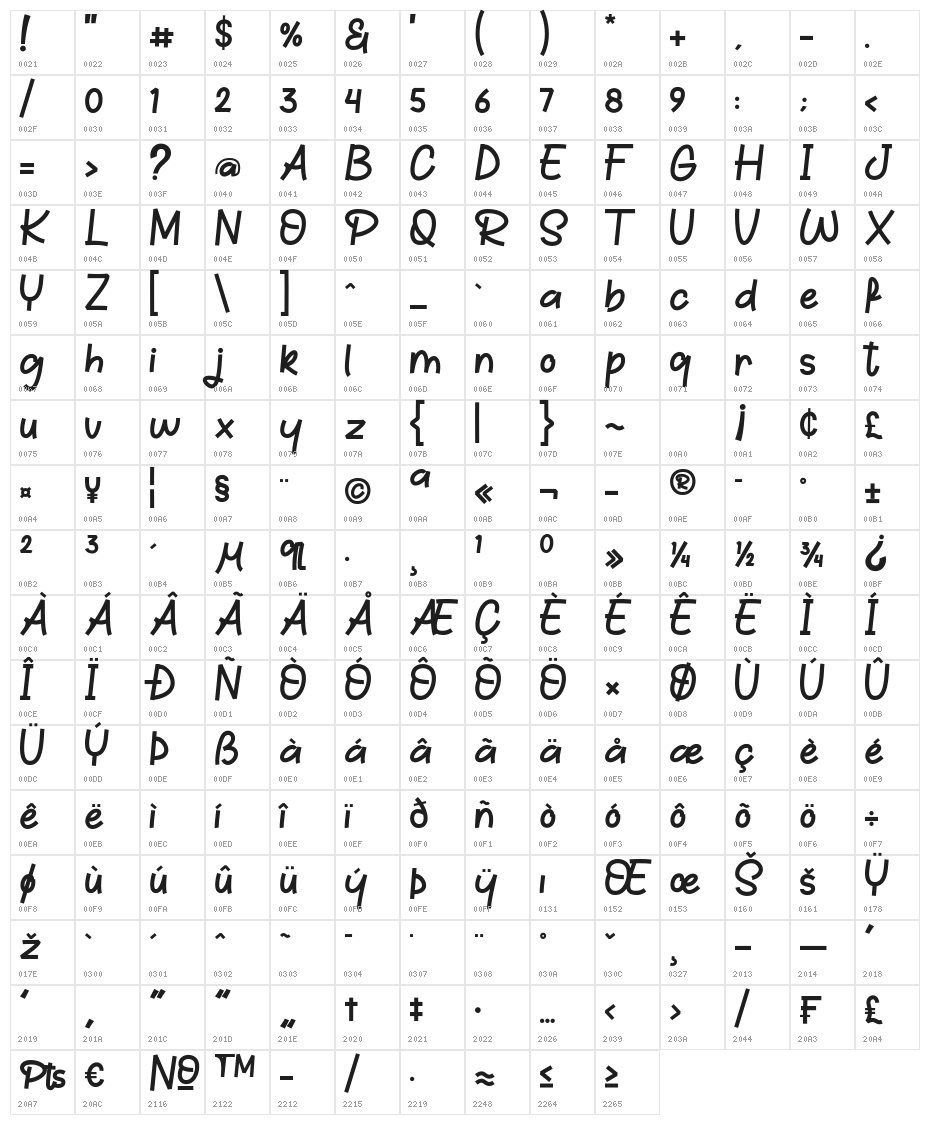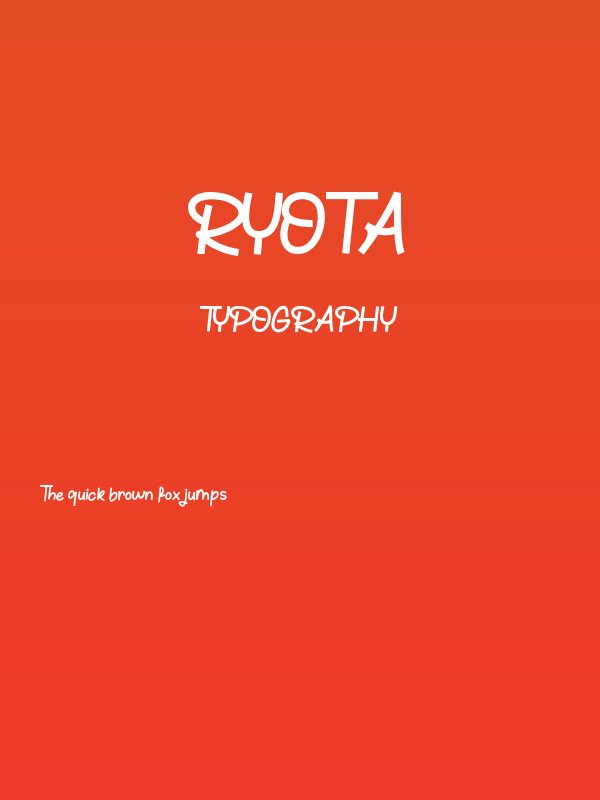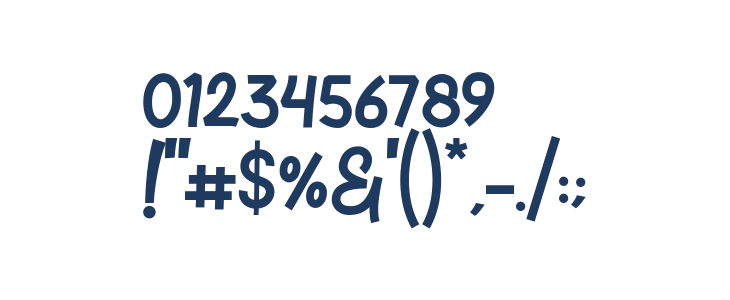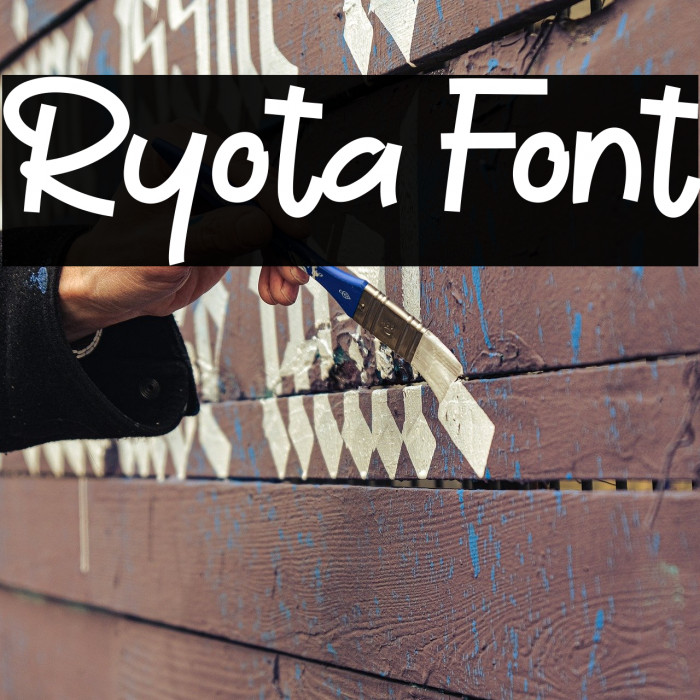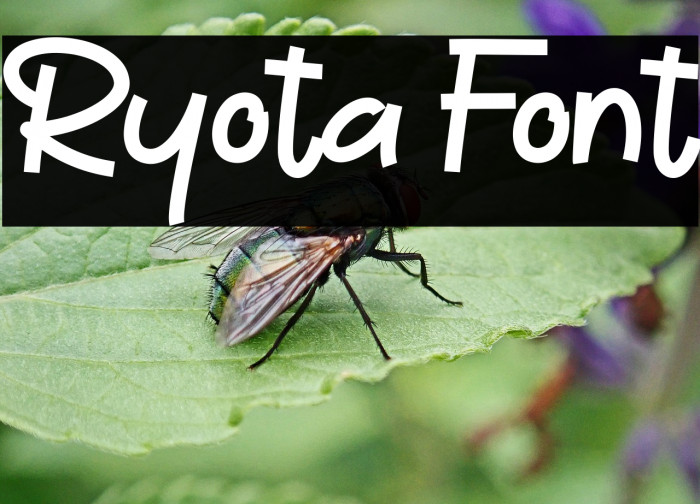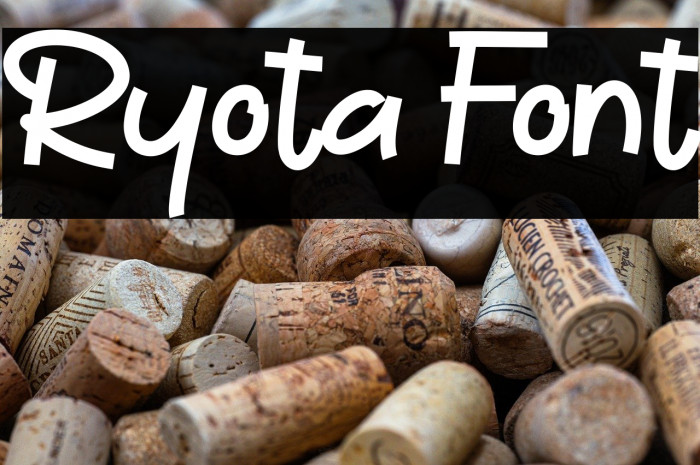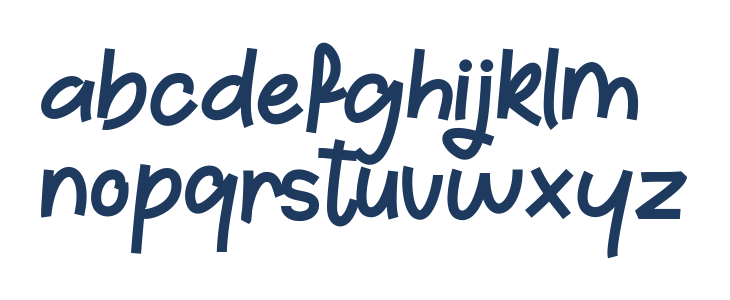
Ryota Font
Ryota Description
This font features a playful and energetic style with a handwritten appearance. The characters are bold and slightly slanted, giving a dynamic and informal feel. The strokes are consistent in thickness, contributing to a cohesive look. The uppercase letters are slightly larger than the lowercase, maintaining readability while adding a touch of whimsy. The numbers and special characters follow the same style, ensuring uniformity across all glyphs. This font is ideal for projects that require a personal and friendly touch.
| Use Case | Headlines, Logos, Informal text |
| Proposed Projects | Ideal for greeting cards, children's books, playful branding, and social media graphics. |